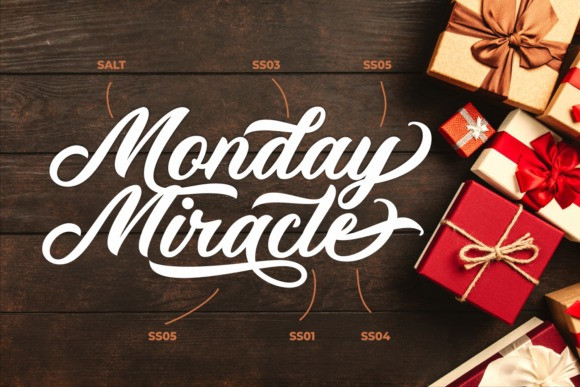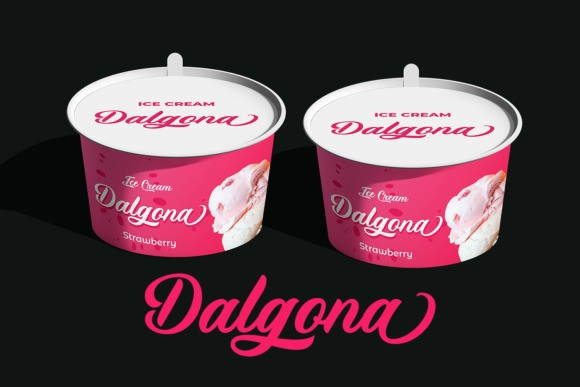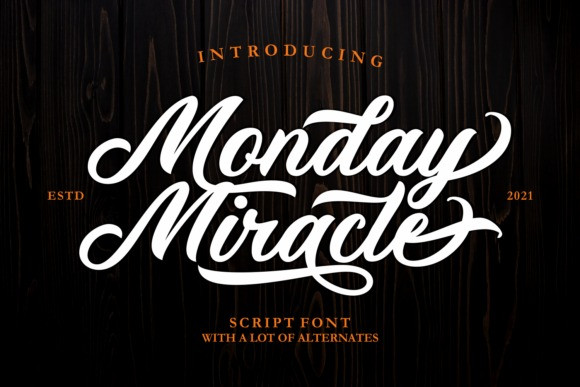
Monday Miracle Font
Monday Miracle Font is a hand lettering script typeface with attractive swashes and alternates! This font is perfect for logos, invitations, labels, magazines, books, greeting/wedding cards, packaging, fashion, make-up, stationery, or labels.